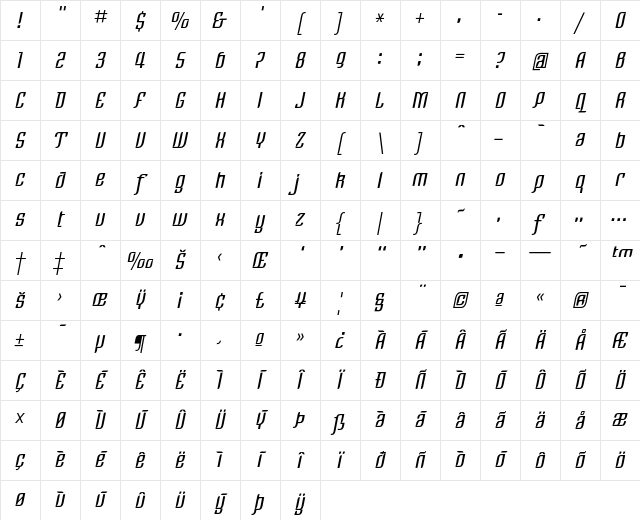
Complete Linotype Rezident Two Regular glyph index. Displaying only characters natively supported by Linotype Rezident Two Regular font.
Linotype Rezident Two is a composed and adaptable typeface that performs quietly and consistently across a wide range of design contexts.